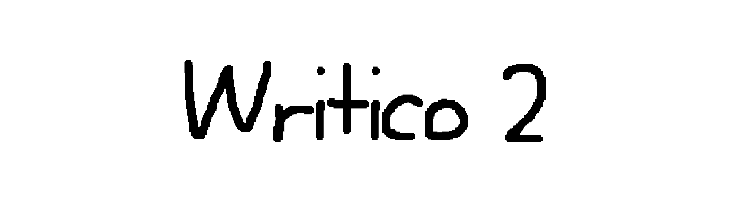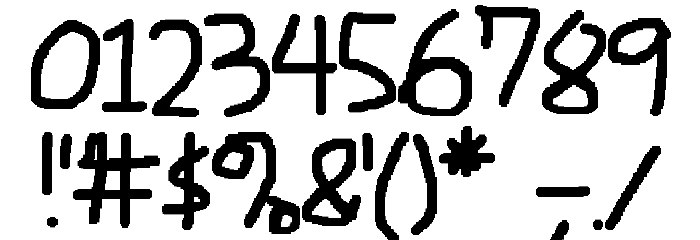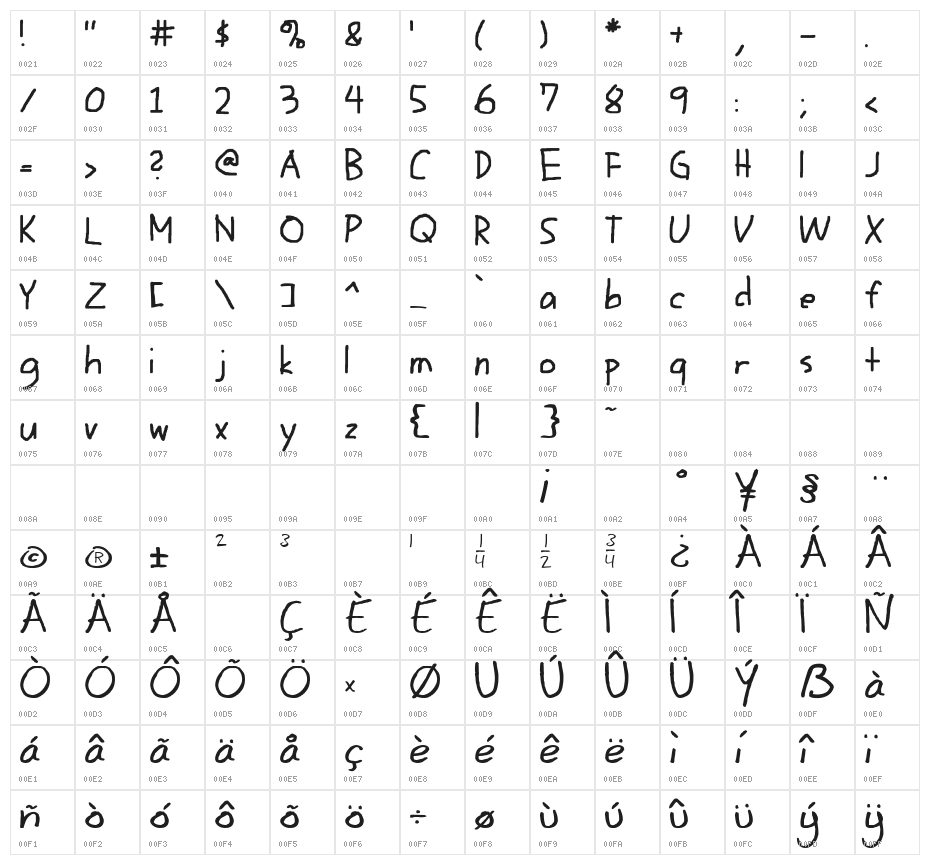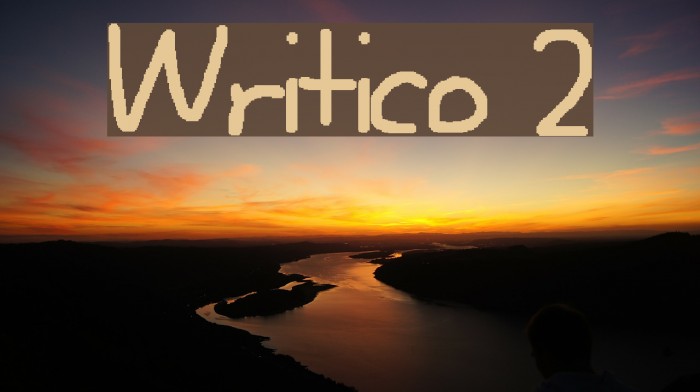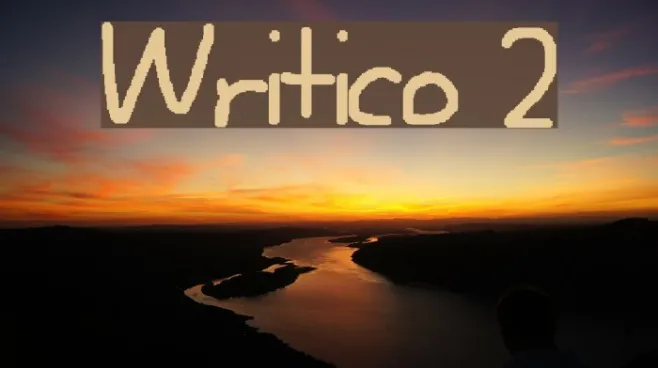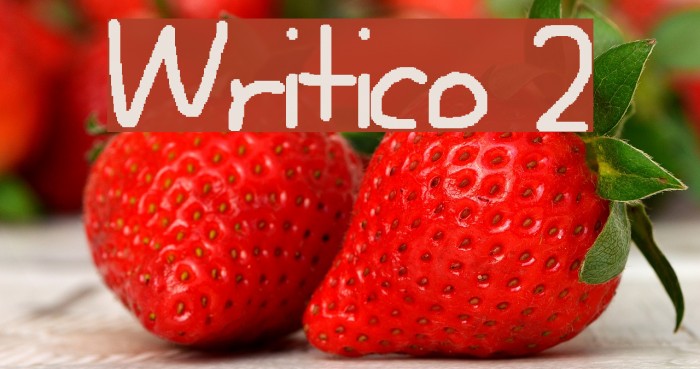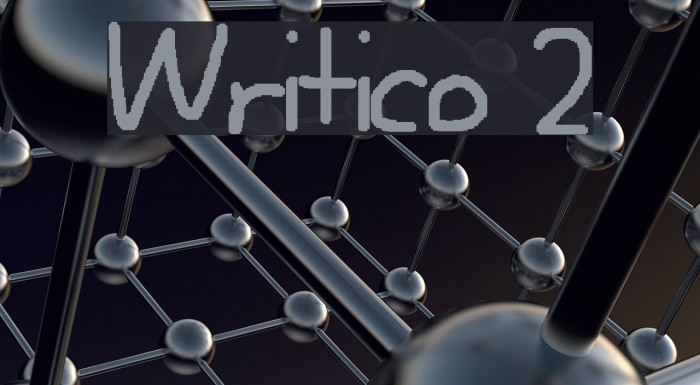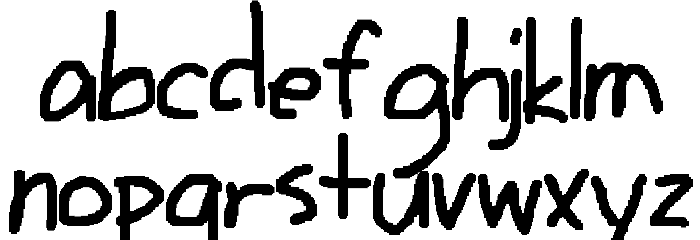
Writico 2 Font
Writico 2 Description
This font exhibits a playful and casual handwritten style, characterized by its irregular strokes and informal appearance. The letters are slightly uneven, giving it a personal and approachable feel. The uppercase and lowercase letters maintain a consistent style, with rounded edges and a slight tilt, enhancing its handwritten charm. Numbers and special characters follow the same informal design, making it versatile for creative projects. The font's overall appearance is friendly and relaxed, suitable for conveying a sense of warmth and individuality.
| Proposed Projects | Ideal for greeting cards, personal invitations, children's books, and casual branding projects. |